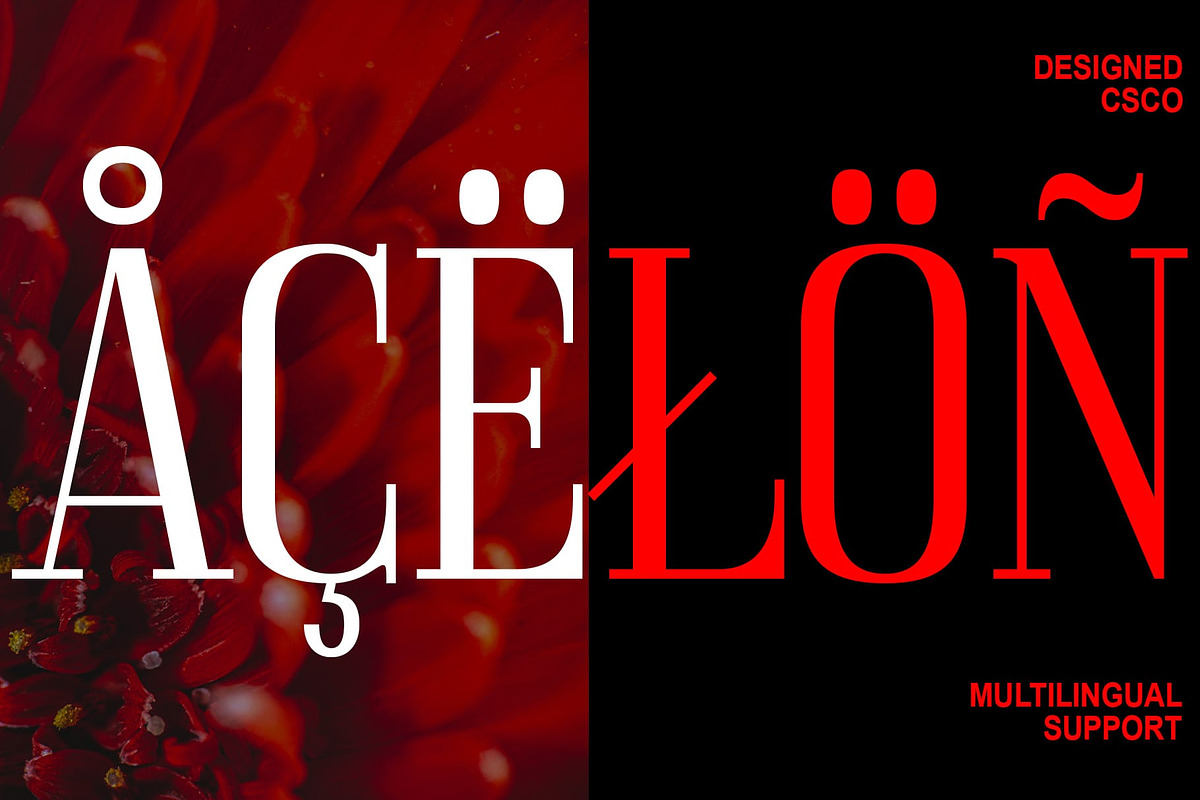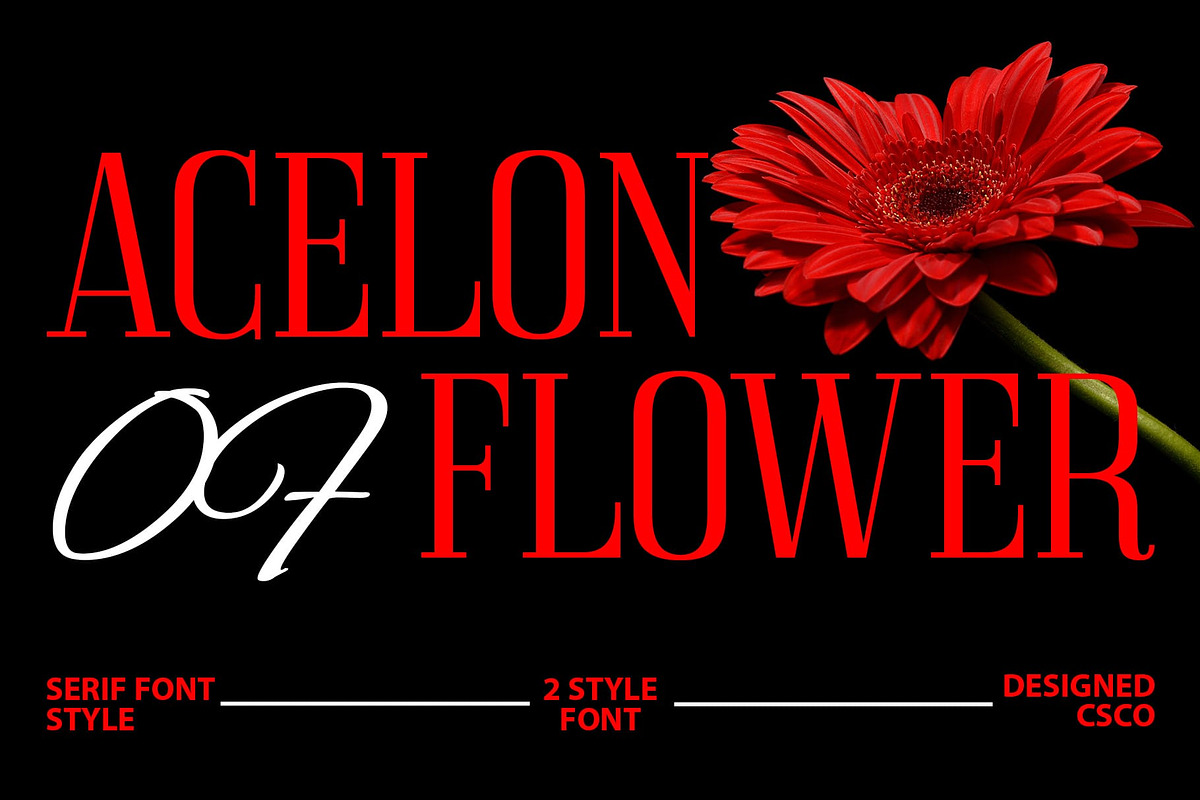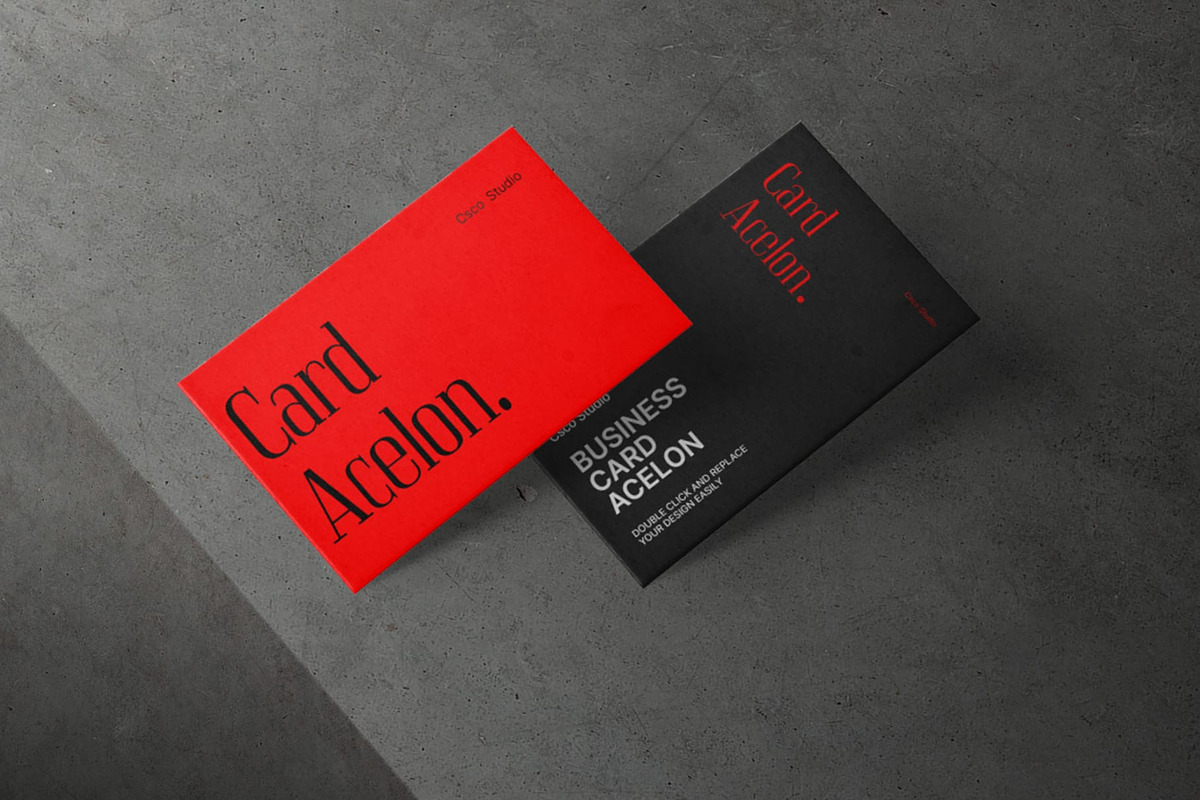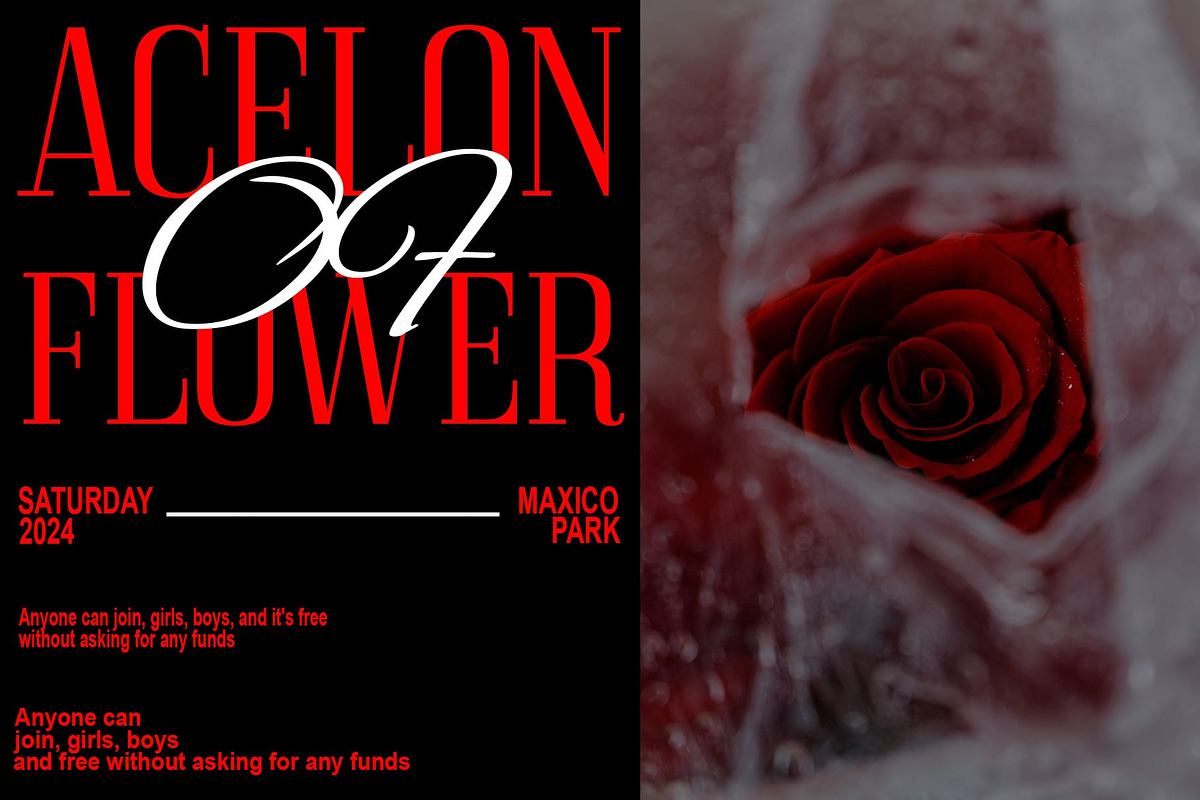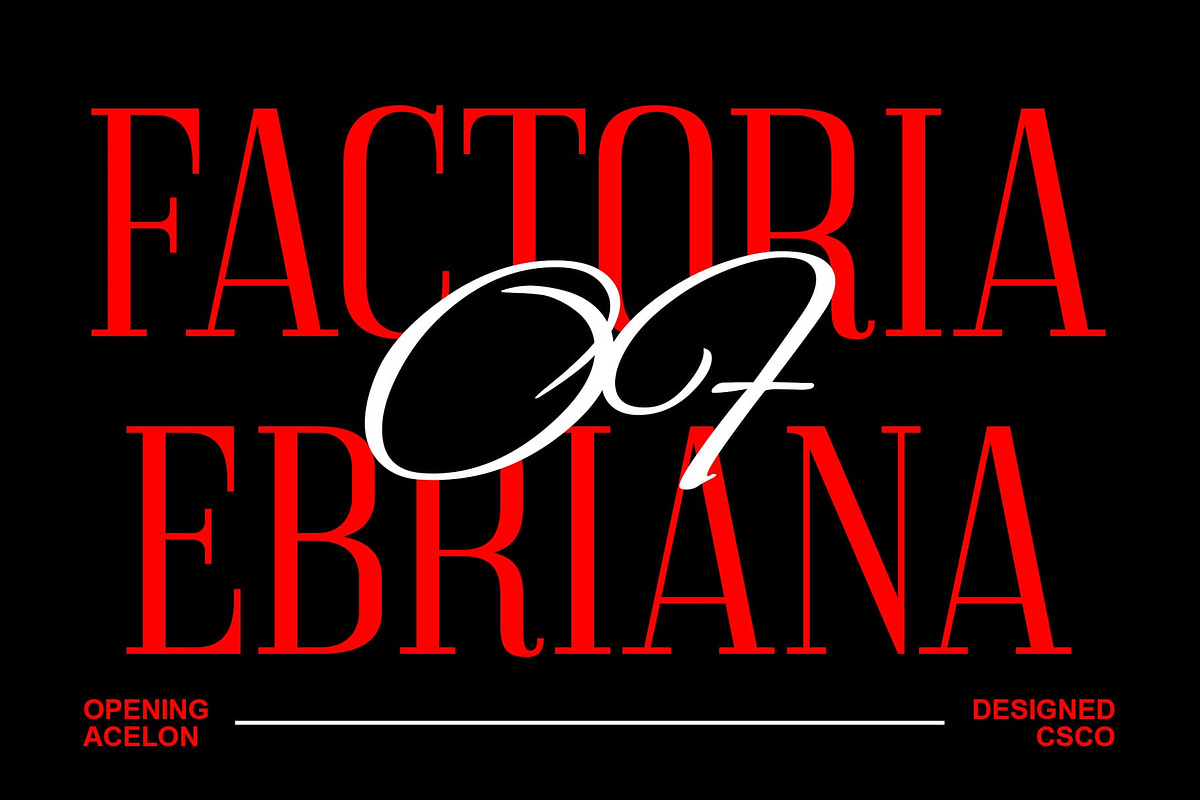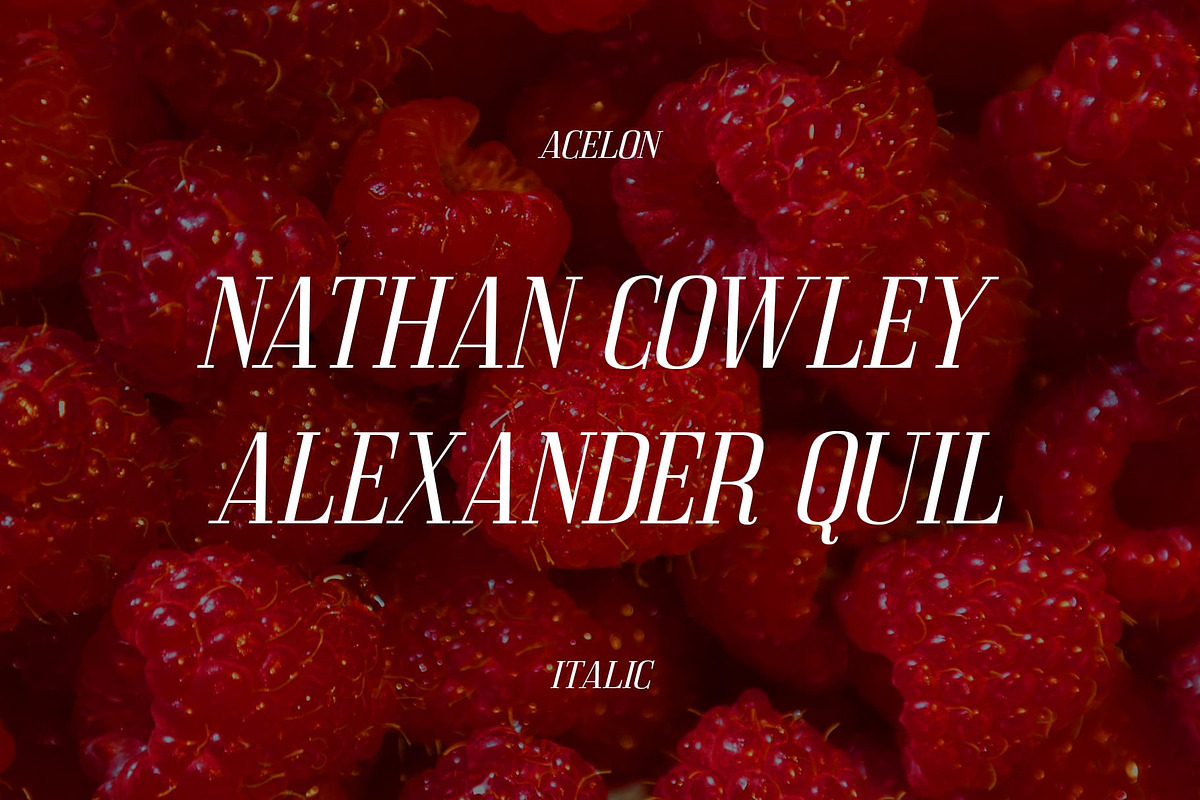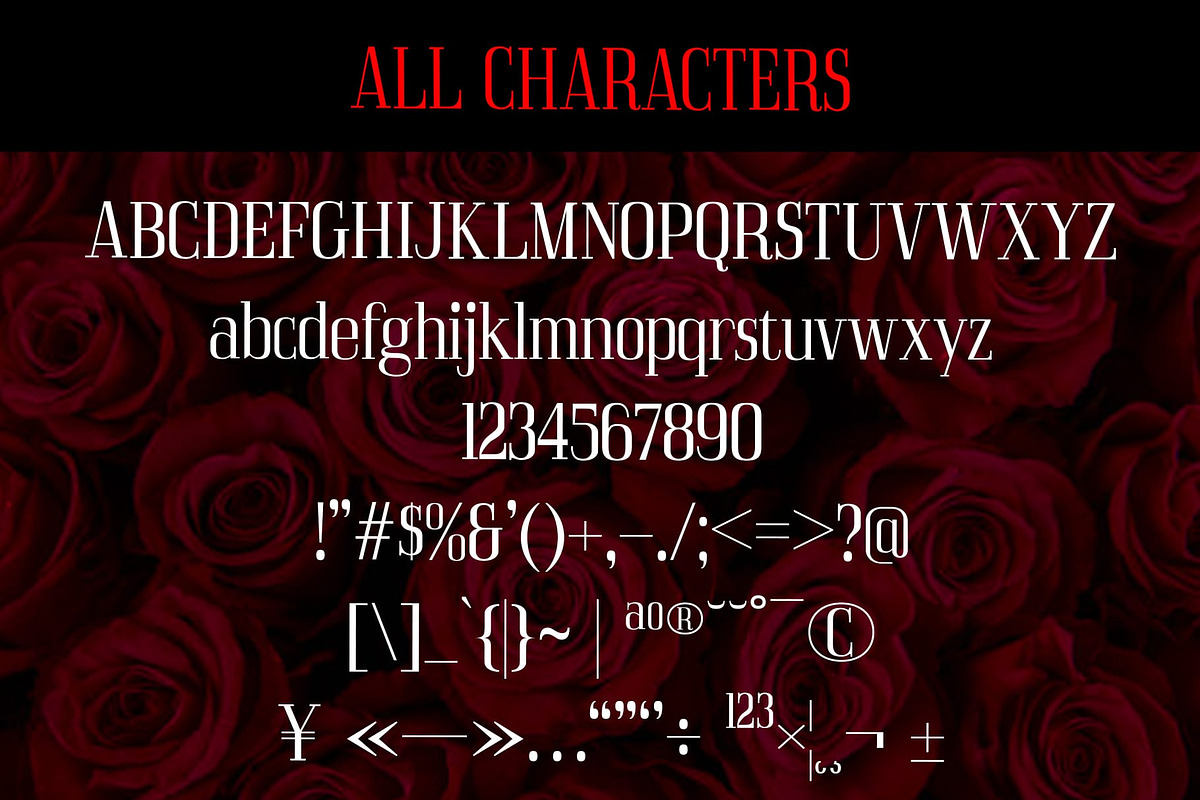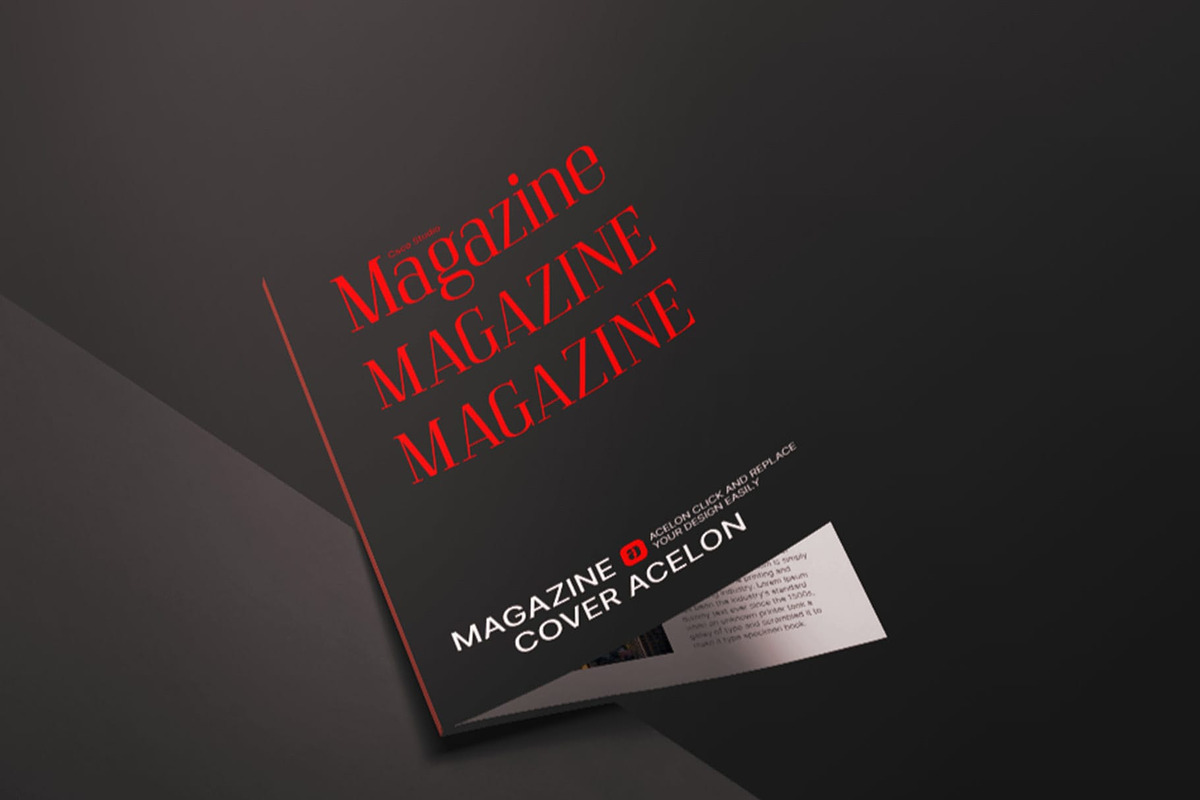
Acelon – Condensed Serif
Acelon Font: Elevating Corporate Elegance
Striking Sophistication Acelon, a condensed serif font, epitomizes streamlined sophistication, ensuring a powerful visual impact that seamlessly aligns with corporate aesthetics.
Towering Elegance in Every Stroke With its commanding height and precise strokes, Acelon captivates attention, making it the perfect choice for corporate identities seeking a strong visual presence.
Precision for Professionalism Acelon’s condensed form exudes professionalism, guaranteeing clarity in communication and establishing itself as an ideal companion for corporate visual strategies.
Versatile Impactful Designs From business cards to annual reports, Acelon’s condensed serif style breaks traditional boundaries, adding refinement to diverse design projects.
Conclusion: Refining Corporate Communication In the world of typography, Acelon isn’t just a font; it’s a language of precision and elegance. Elevate your corporate communication with Acelon, where each character is meticulously crafted to convey authority, sophistication, and timeless style.
Features : Uppercase and lowercase characters Numerals and Punctuation (OpenType Standard) Accents (Supports Multilingual Characters) PUA Encoding You can use this typeface without needing any specialized software.